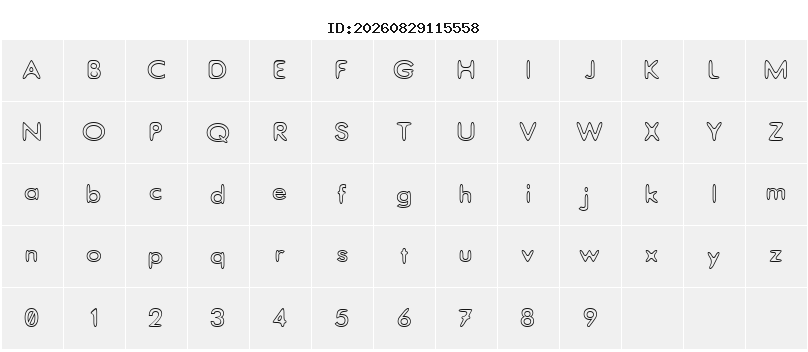
• Font Name: Thorazone
• Full Font Name: Thorazone
• Designer: Graham Meade
About Thorazone .ttf
Thorazone .ttf is a modern, elegant sans-serif font designed for ultimate readability and visual harmony. Perfect for branding, headlines, web design, and print materials.